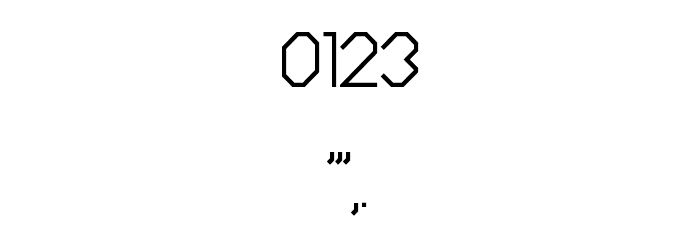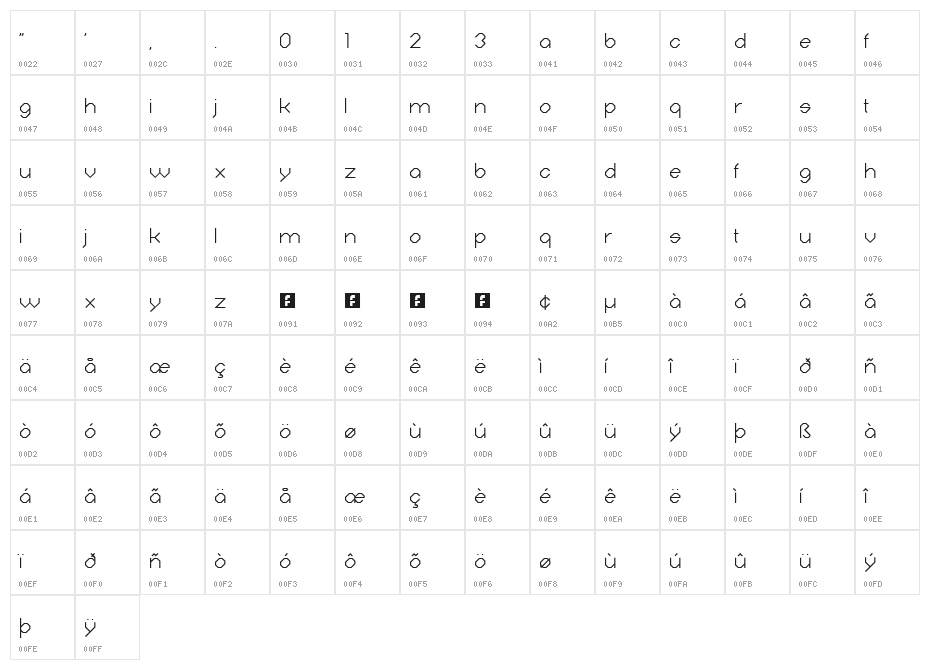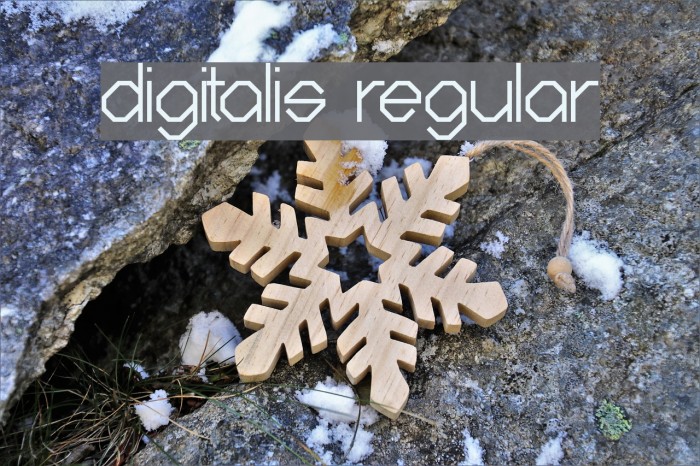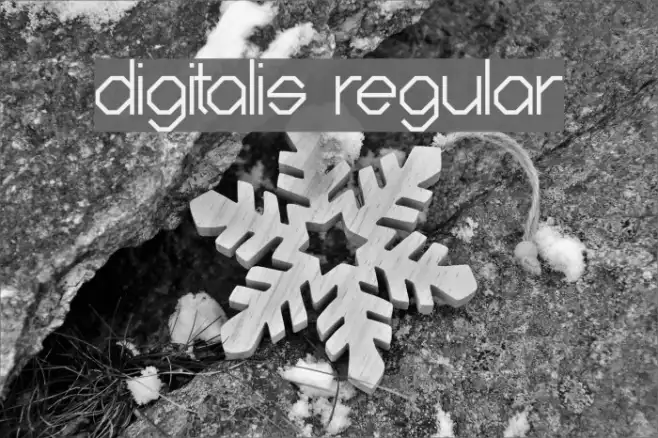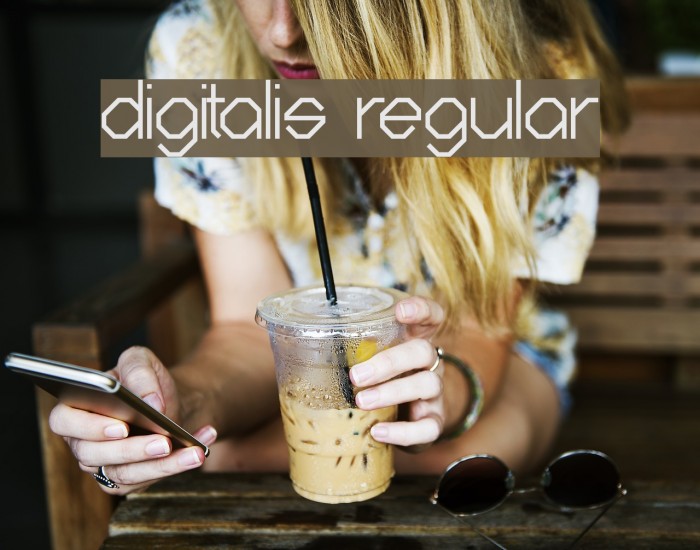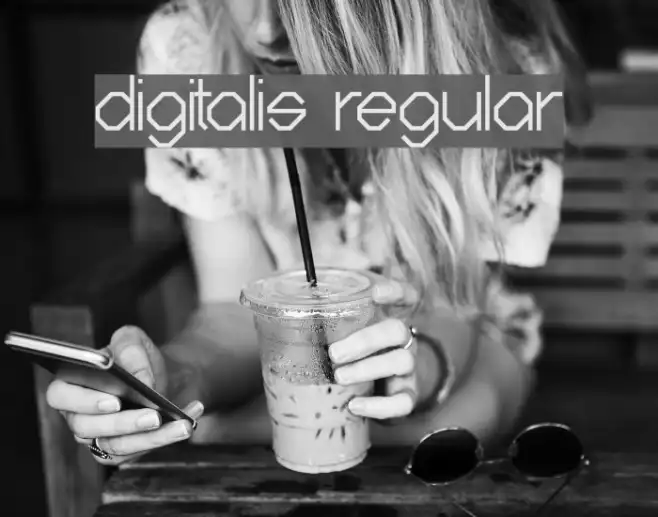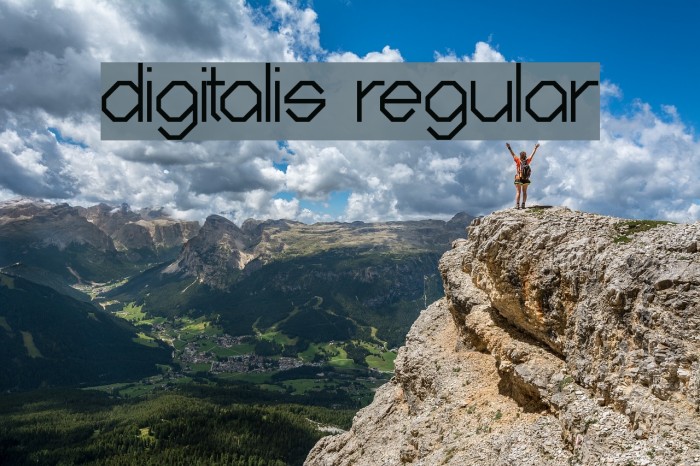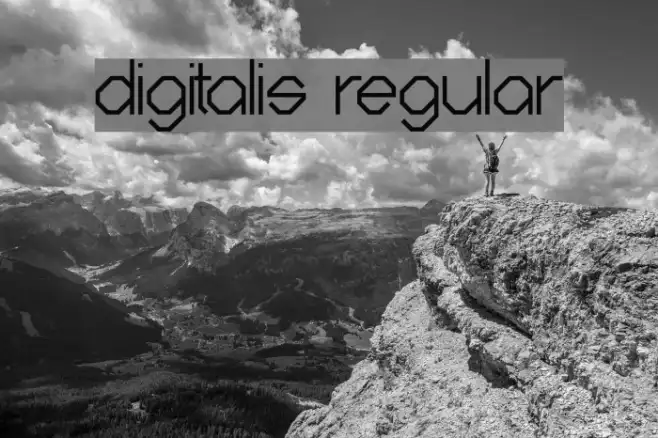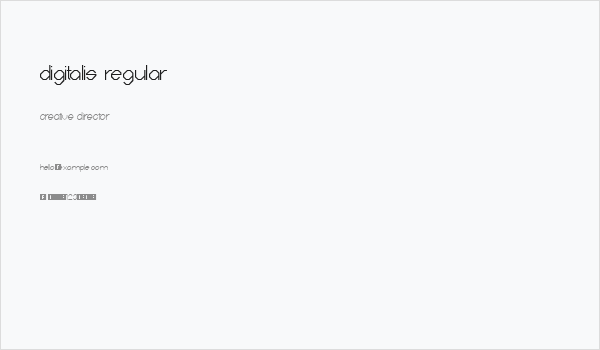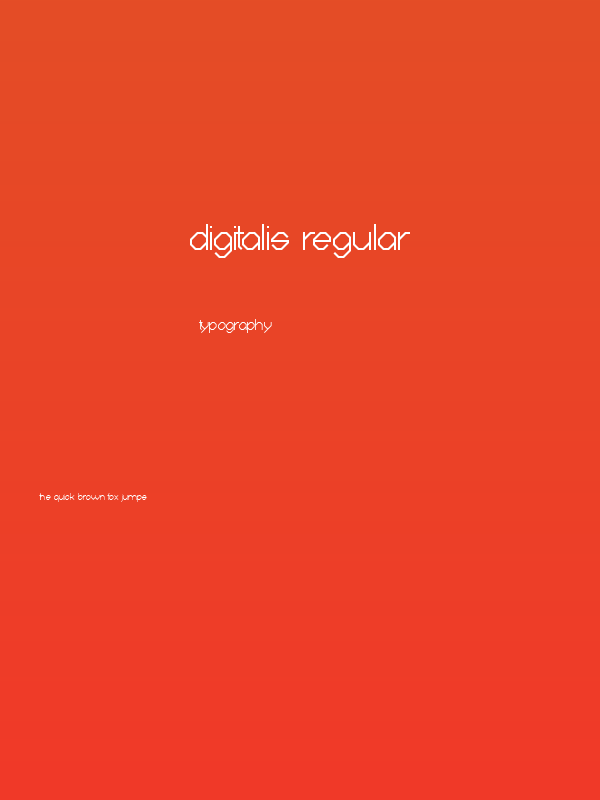
Digitalis Regular Font
Digitalis Regular Description
This font features a geometric and angular design, characterized by its sharp edges and straight lines. The characters are constructed with a consistent stroke width, giving it a modern and digital appearance. The uppercase and lowercase letters maintain a uniform height, contributing to a cohesive look. The numerals and special characters follow the same stylistic approach, ensuring visual harmony across all elements. Its unique style makes it stand out, suitable for projects that require a futuristic or tech-inspired aesthetic.
| Use Case | Logos, Headlines, Digital interfaces |
| Proposed Projects | Ideal for tech branding, digital interfaces, video game graphics, and futuristic-themed designs. |